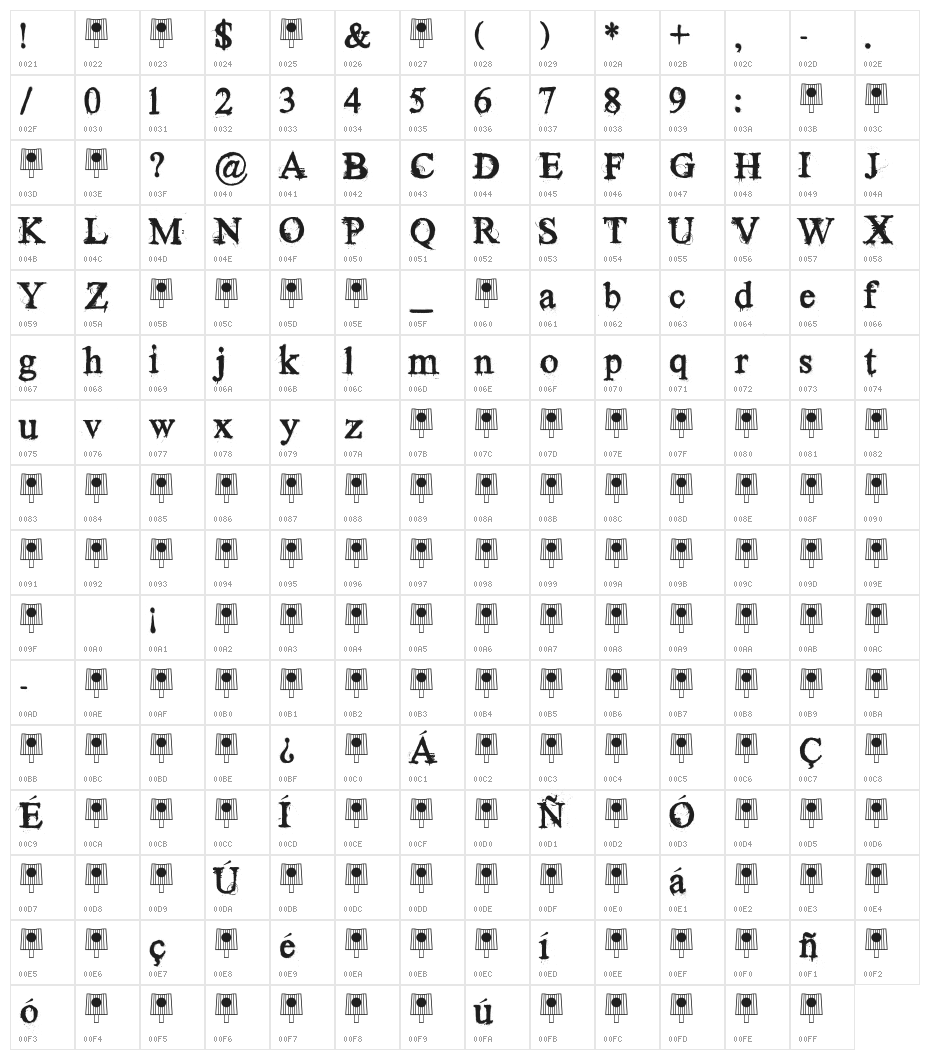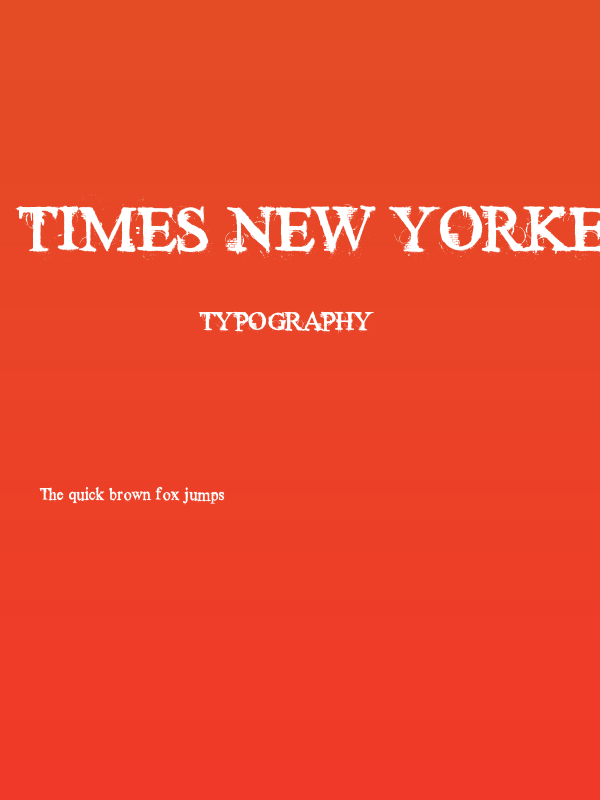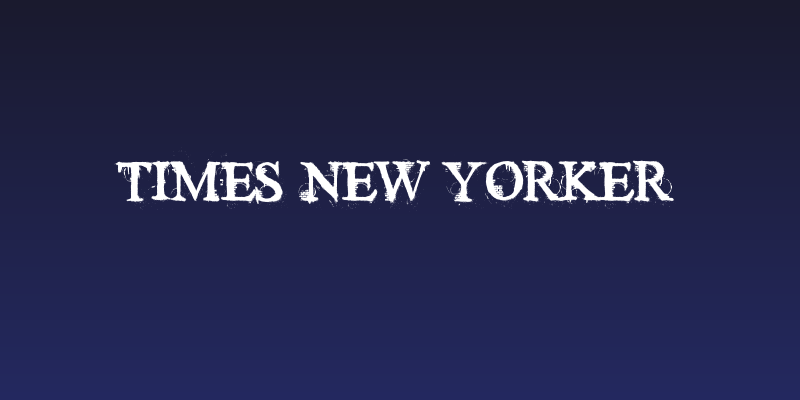
Times New Yorker Font
Times New Yorker Description
This font features a distressed, grunge style with a vintage flair. The characters have a rough, textured appearance, giving them a weathered and aged look. The uppercase and lowercase letters maintain a consistent style, with sharp serifs and uneven edges that add to the overall rugged aesthetic. The numbers and special characters follow the same design principles, ensuring a cohesive appearance across all glyphs. This font's unique style makes it stand out, offering a bold statement in any design project.
| Overall Style | Vintage, Decorative |
| Proposed Projects | Ideal for album covers, posters, vintage-themed branding, and any project requiring a bold, edgy look. |